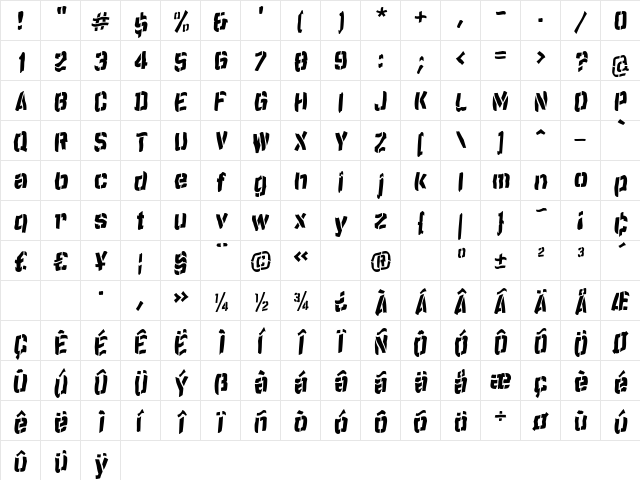
SailingStrongBreeze Regular
Design Context for SailingStrongBreeze Typeface
SailingStrongBreeze is a composed and adaptable typeface that performs quietly and consistently across a wide range of design contexts.